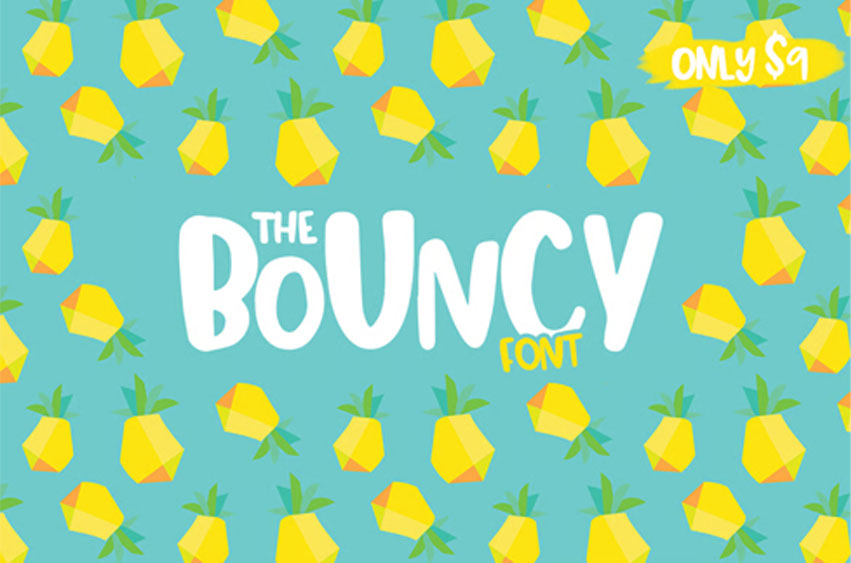
Bouncy Font
Bouncy Font is a fab new font that Santa himself would approve of! It looks like it could be made of real snow!
Perfect for all of your holiday designs, including those letters to the jolly man himself! Enjoy!